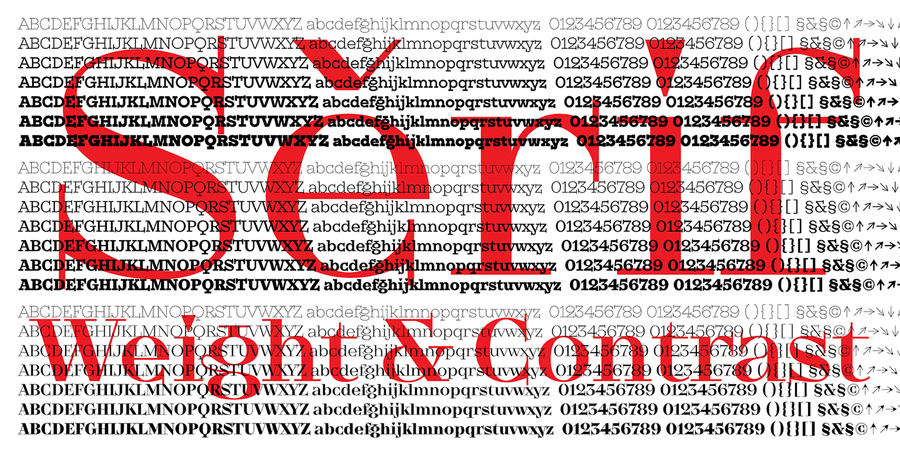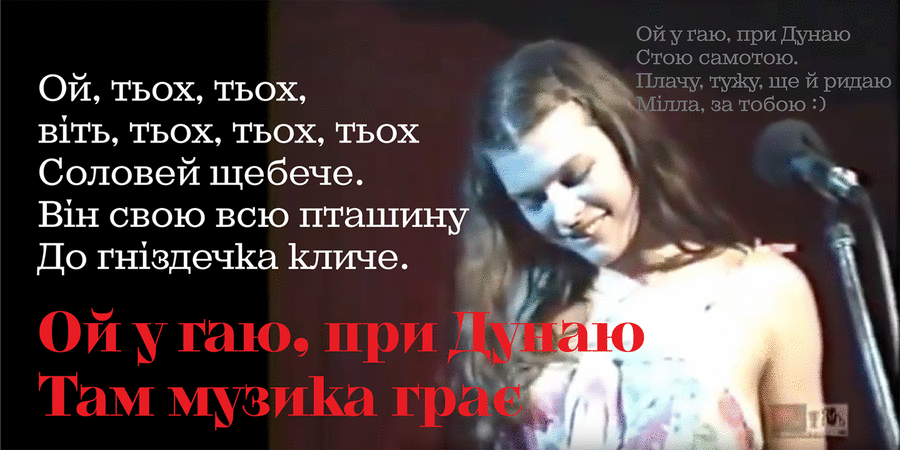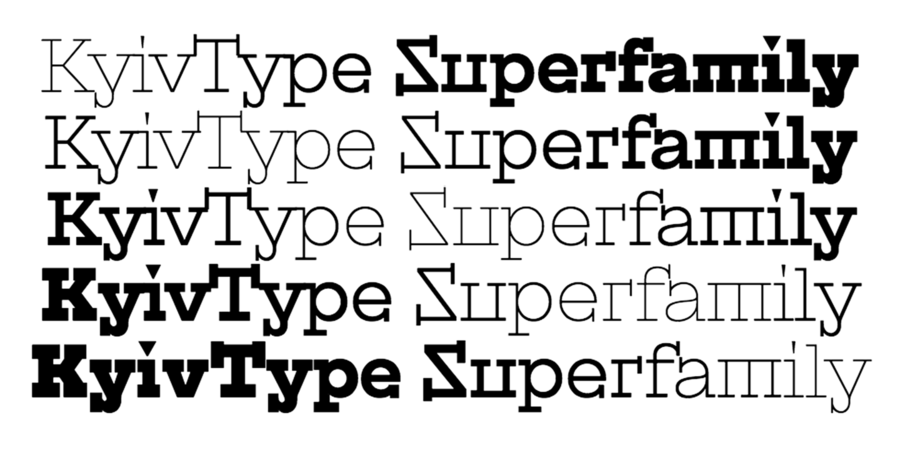
The Slab Serif part of Kyiv Type superfamily. A typeface for Kyiv with many faces and a sharp temper appeared when Dmitry Rastvortsev joined the #newkyivlogo project (chestnut leaf as the logo of Kyiv). “Kyiv is different. A little rude. A bit intelligent. A bit party. A bit hipster. A bit traditional. It is an eclectic city. It easily includes different things and people – this creates the Kiev that I love. The typeface is the same – a little rough, a little intelligent, a little party, a little traditional, a little wild. And very, very different.” – this is how the project is described by Alexander Tregub – the founder of Projector and the ideological inspirer of the new Kyiv logo.
Associations for font family Kyiv Type SerifTypeface personality and character:
lasting, reliable, serious, interesting, high-quality, urban, cultural, expressive, self-assured, rectangular, iron, steel, strong, industrial, technogenic, motivating, severe, loud, tough, urbanistic, responsible, schematic, engineering, ambitious, sexy, workman, ironic, stable, Vintage, flat, sharp, solid, original, distinctive, fashionable, intricate, cutting, pretentious, extravagant, nonconformist, Bohemian, accurate, convincing, crisp, static, conservative, traditional, masterful, old-fashioned, nostalgic, good quality, old school